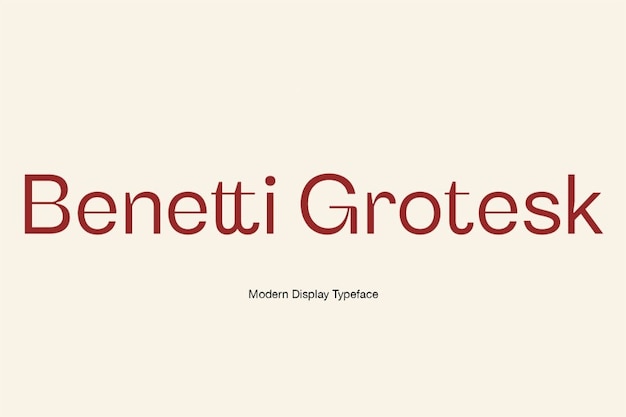
Benetti Grotesk
Benetti Grotesk Font
It is a modern font that beautifully blends simplicity with rounded edges. Its sleek, minimalist design makes it perfect for a wide range of applications, from websites to branding. The rounded elements add a touch of friendliness to its otherwise straightforward and practical appearance. Whether you're designing a contemporary website or crafting a clean and legible message, "Benetti Grotesk" strikes the perfect balance between modern aesthetics and simplicity, making it a versatile choice for various design projects.